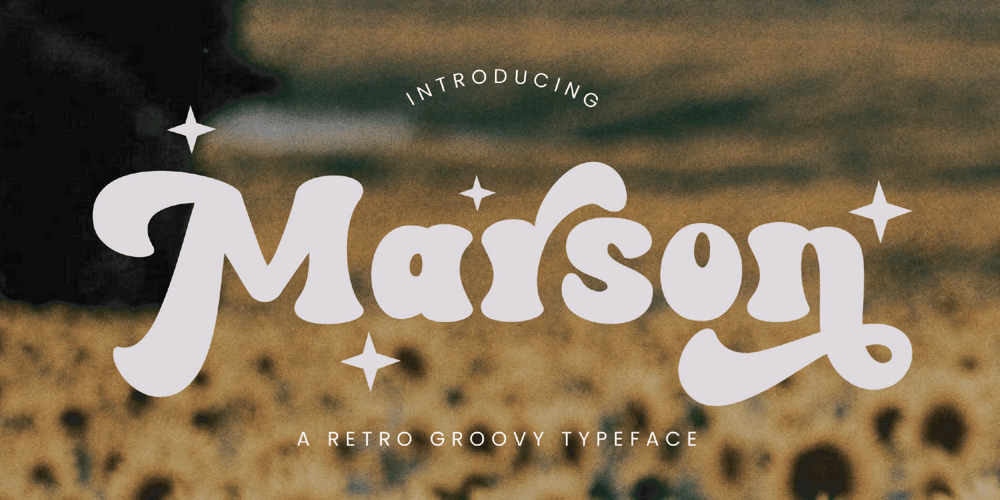
Marson Font Family was designed by Achmad Yani and published by Flawlessandco. Marson contains 1 styles and family package options. Introducing “Marson” – A Groovy Retro Typeface. Unleash the nostalgic charm of the past with Marson, a captivating groovy retro typeface designed to transport your designs back in time. With its sleek lines, bold curves, and distinct 70s-inspired aesthetic, Marson brings an essence of vintage coolness to any project.There’s some connected letters and some alternates that suitable for any graphic designs such as branding materials, t-shirt, print, business cards, logo, poster, t-shirt, photography, quotes .etcThis font support for some multilingual. Also contains uppercase A-Z and lowercase a-z, alternate character, numbers 0-9, and some punctuation.If you need help, just write me! Thanks so much for checking out my shop!